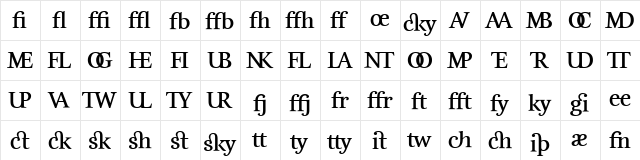
EstaLigaturesBold Regular
Design Context for EstaLigaturesBold Typeface
EstaLigaturesBold offers clean, dependable letterforms without strong stylistic allegiance, making it a practical choice for designers who need flexibility. Its bold stroke weight gives it real presence on the page.